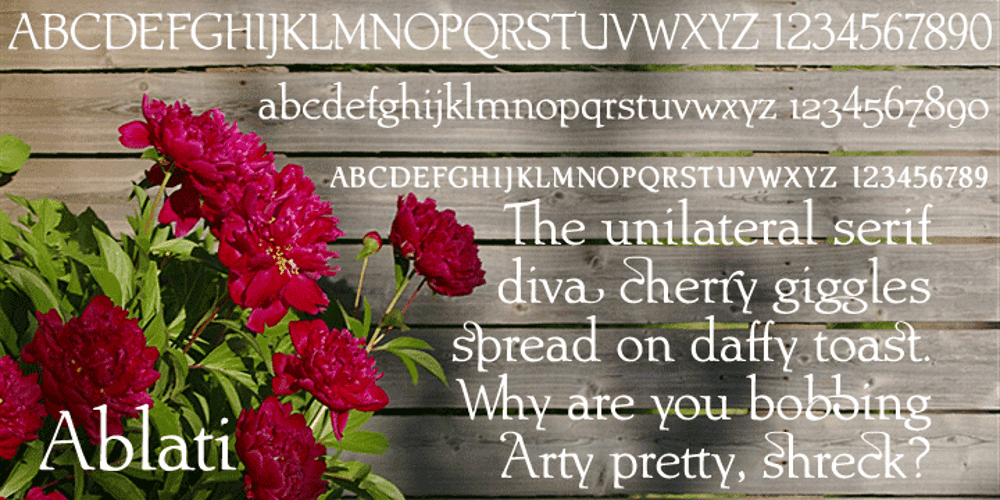
Ablati Font Family was designed by David Bergsland and published by Hackberry Font Foundry. Ablati contains 5 styles and family package options. Ablati is the commercial release of the font designed during the production of our new font design book, “Practical Font Design”. It is a new serif font in my continuing objective of designing book fonts that I can really use. In many ways, Ablati is a very different direction for me. Designed to produce gaphics to use in the font design book, I was forced to really reconsider many of my working methods to make them work for outside readership. Like all designers, my internal design processes can get really sloppy. The book helped me clean up my act. Taking my inspiration from one of my favorite fonts of all time {though I’ve never really been able to use it much}, Romic, by Colin at Letraset, I decided to design a unilateral serif font. In most ways, this is a normal serif for me in that it has caps, lowercase, small caps with the appropriate figures for each case. This font has all the OpenType features in the new set developed for the book. There are several ligatures for your fun and enjoyment: bb gg ff fi fl ffi ffl ffy fj ft tt ty Wh Th and more. Several alternative forms, a dozen ornaments, and more. Like all of my fonts, there are: caps, lowercase, small caps, proportional lining figures, proportional oldstyle figures, & small cap figures, plus numerators, denominators, superiors, inferiors, and a complete set of ordinals 1st through infinity. Enjoy! The Oldstyle and Small Cap fonts are an attempt to have most of the OpenType characters available to people still using Type 1 and TrueType fonts.